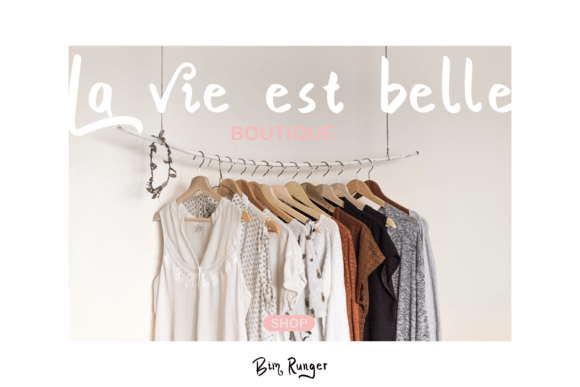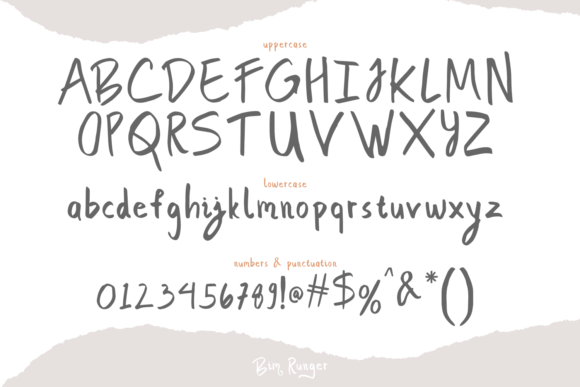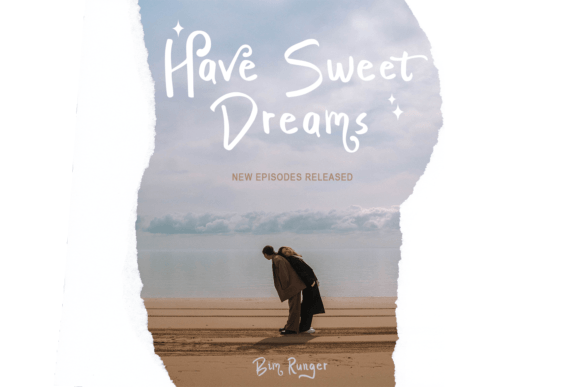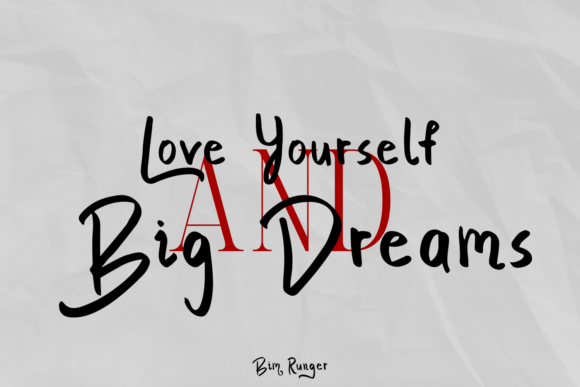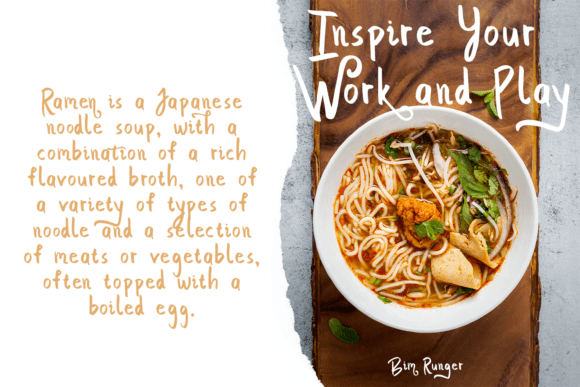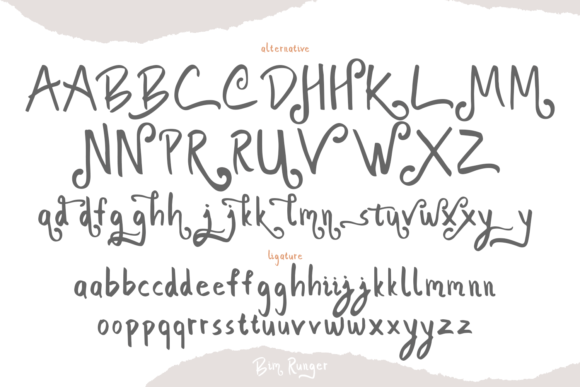
I still remember the frustration of working on a project, hours spent crafting the perfect layout, only to realize that the font I chose wasn’t quite right. The client wanted something more personal, more unique. That’s when I stumbled upon Bim Runger, a realistic handwritten font that has since become a staple in my design toolkit.
Introducing Bim Runger
Bim Runger is a beautifully crafted handwritten font, designed to bring a touch of personality to any project. With its alternative ligatures and realistic feel, it’s perfect for books, title branding, product packaging, invitations, quotes, labels, posters, logos, and more.
- ✨ Realistic feel: Bim Runger has a wonderfully organic feel, making it perfect for projects that require a personal touch.
- ✅ Alternative ligatures: The font comes with a range of alternative ligatures, allowing you to add an extra layer of personality to your text.
- ✨ Versatile: Whether you’re working on a book, a poster, or a logo, Bim Runger adapts beautifully to different design contexts.
While Bim Runger is an excellent font, there are a few things to keep in mind:
- ⚠️ Glyph limitations: As with any font, there may be limitations to the number of glyphs available. However, Bim Runger’s glyph set is extensive and includes a range of alternative characters.
- 🤔 Kerning: As with any font, you may need to adjust the kerning to get the best results. However, Bim Runger’s kerning is generally excellent, and you may find that only minor adjustments are needed.
Bim Runger was designed with the intention of creating a font that feels both personal and professional. The designer wanted to craft a font that would allow users to add a touch of warmth and personality to their projects, without sacrificing legibility or style.
Q: What is Bim Runger?
Bim Runger is a realistic handwritten font, designed to bring a touch of personality to any project.
Q: Is Bim Runger suitable for body text?
While Bim Runger is a beautiful font, it’s best suited for display text or headings. For body text, you may prefer a font with more traditional typography.